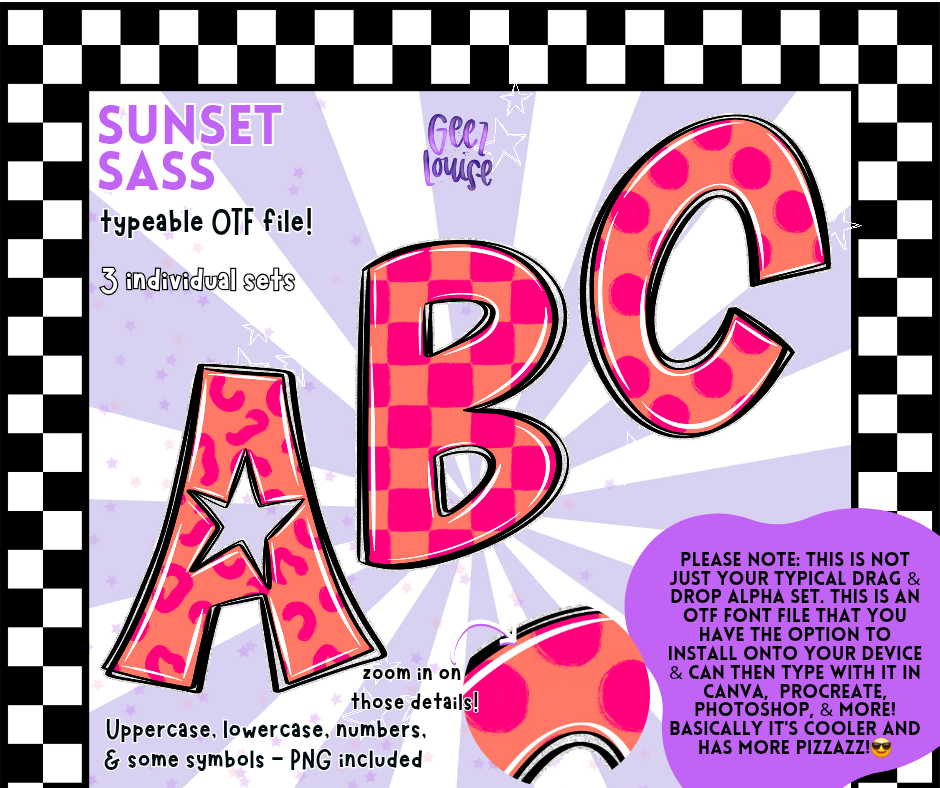
Sunset Sass Pink Alpha Bundle – 3 Style OTF Font + PNG Files
Turn up the heat with Sunset Sass, a bold and bright alpha bundle featuring 3 unique OTF font styles in sizzling pink and coral patterns—leopard, checkered, and polka dot! Perfect for creators who crave playful and punchy fonts that make your projects POP.
Each style includes uppercase, lowercase, numbers, and select symbols, available as both PNG clipart files and typeable OTF fonts. Sunset Sass is ideal for t-shirt designs, digital planners, Canva projects, Procreate art, and more.
• 3 complete alpha sets (leopard, checker, dot)
Whether you're crafting for summer, sassy sayings, or bold branding, Sunset Sass brings serious personality to your projects.